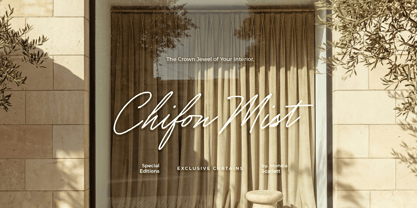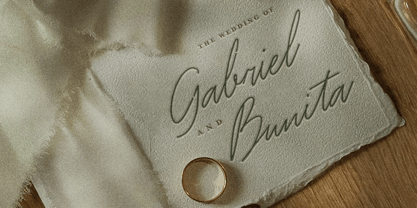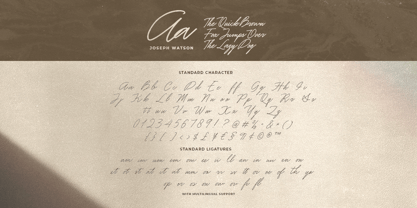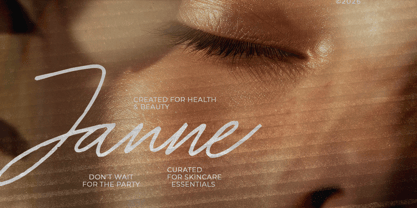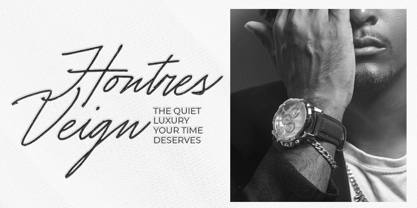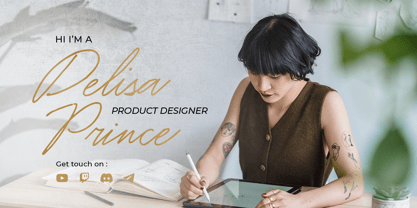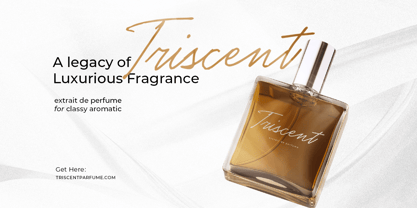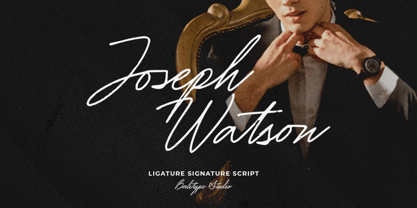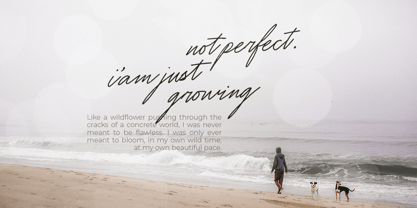
Joseph Watson
von Bale Type
Die Schriftfamilie Joseph Watson wurde von Dzikrul Aulia entworfen und von Bale Type veröffentlicht. Joseph Watson enthält 1 Stile. Mehr über diese Familie
Joseph Watson is an elegant signature script with ligatures. You can use this font for any purposes such as hand signature, branding, quotes, wedding invitations or any project that needs simple yet stunning handwriting. With bunch of ligature, this font will make your design looks even more naturally handwritten. This font also support multi language.
Designer: Dzikrul Aulia
Foundry: Bale Type